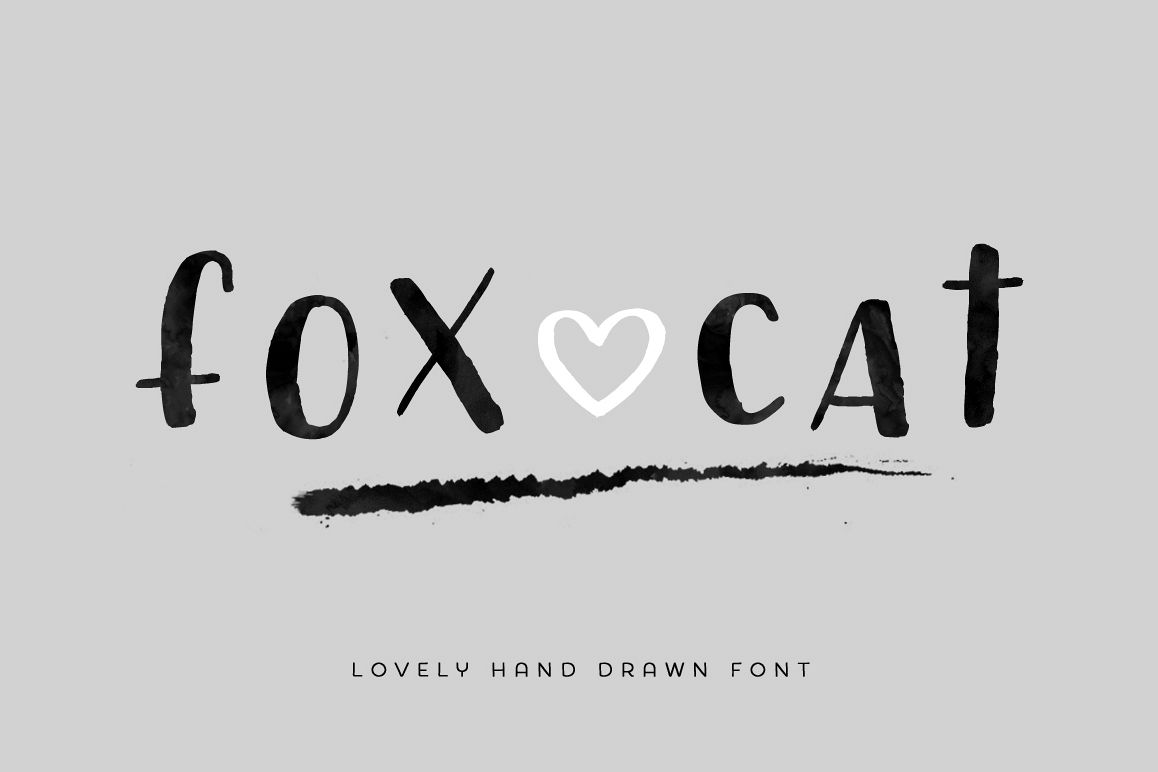
Fox Cat Hand Drawn Font
Fox Cat is a font that features imperfect strokes with a handwritting style. It looks great in quotes, social media posts or simply as handwritten text over any background. Lovely informal look!